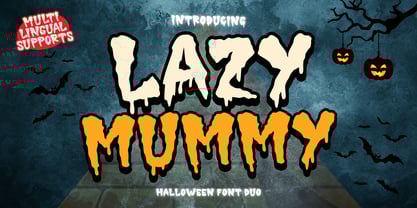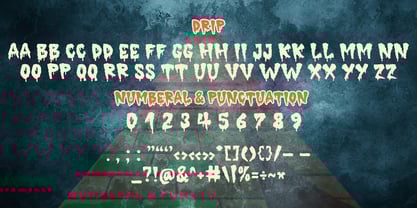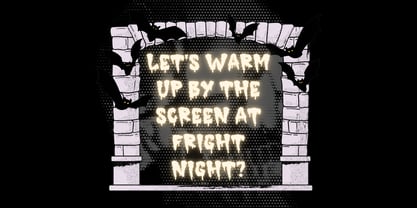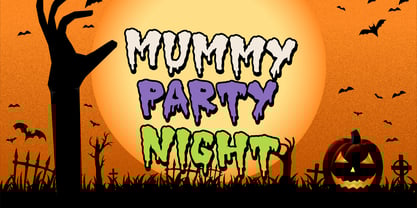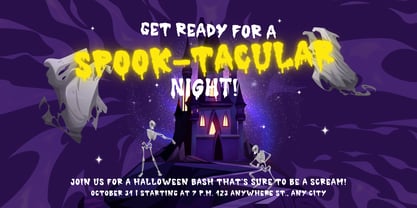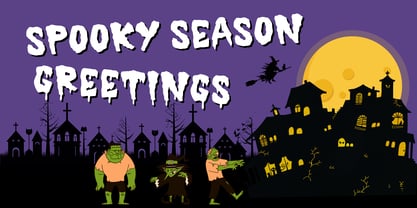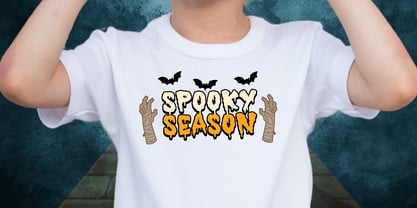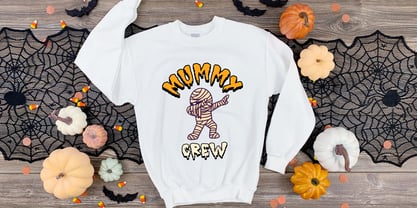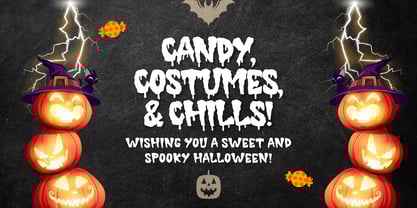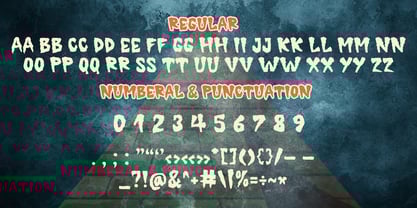
Lazy Mummy
by Brown Cupple Typeface
The Lazy Mummy Font Family was designed by Nattha​ Potchanad​ and published by Brown Cupple Typeface. Lazy Mummy contains 2 styles and family package options. More about this family
Immerse yourself in the enchanting charm of Lazy Mummy – your ultimate Halloween Duo Font. Infused with a whimsical and genuine flair, this font is your magic touch for an array of creative endeavors. Be it captivating blog posts, discreet logos, captivating branding, persuasive ads, heartfelt invitations, or warm greetings cards, Lazy Mummy fits the bill. Extend its charm to your planners, mesmerizing photo albums and festive decorations to breathe life into your creativity. Embrace Lazy Mummy, watch your designs transform, and let the fun-filled results do the talking.